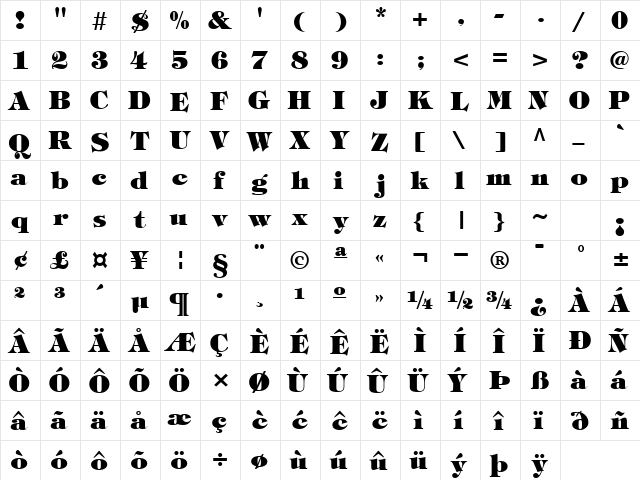
SophisticateUltraSSK Regular
Design Context for SophisticateUltraSSK Typeface
SophisticateUltraSSK takes a measured approach to typography — its balanced proportions and neutral character make it a reliable workhorse for both digital and print work.